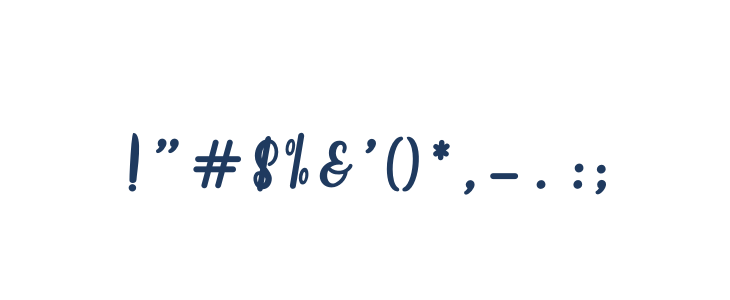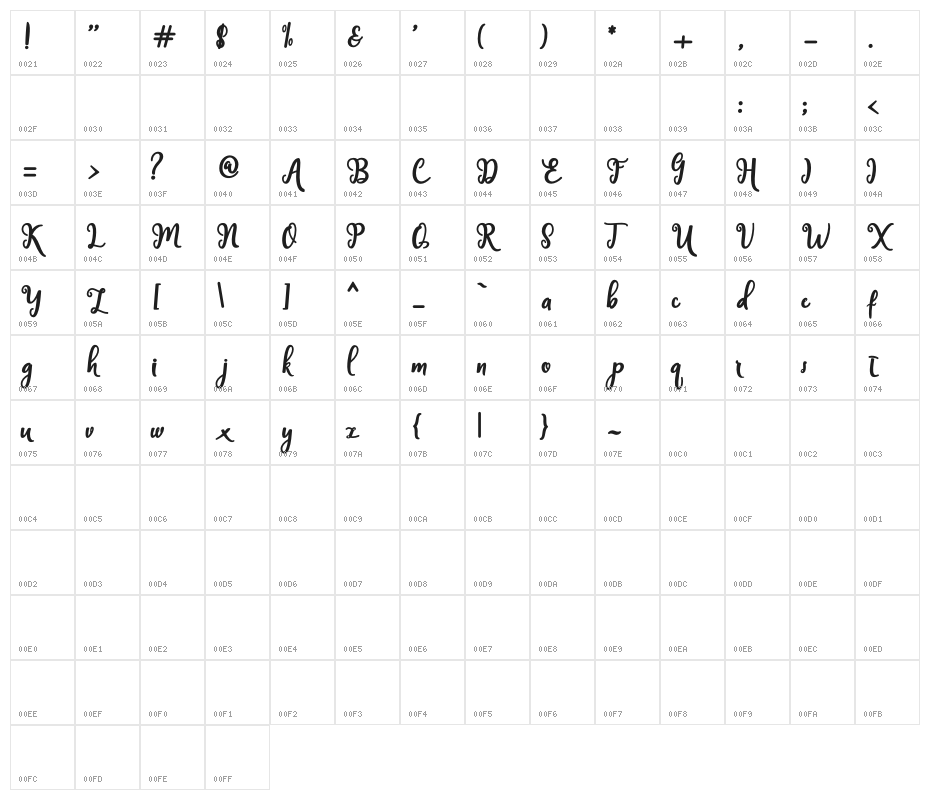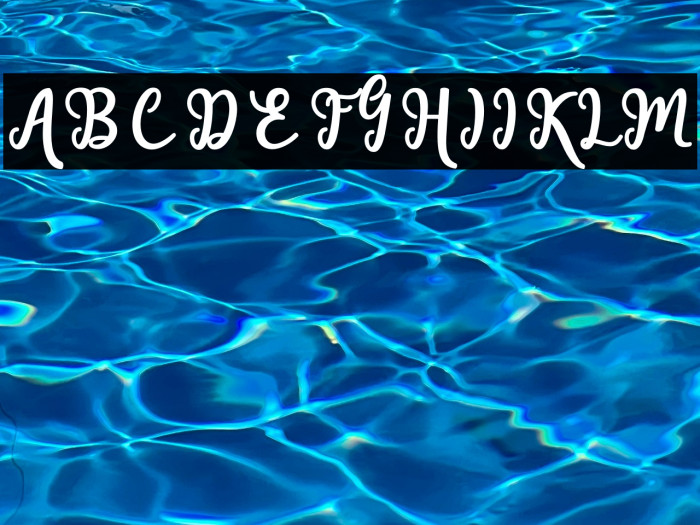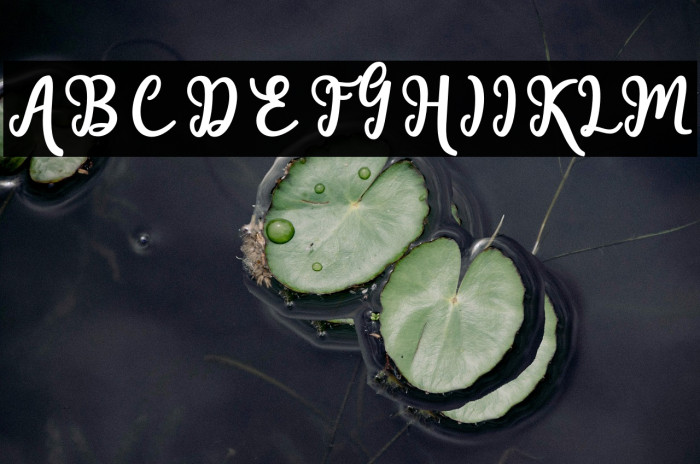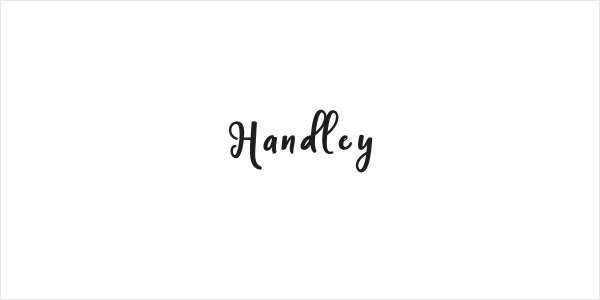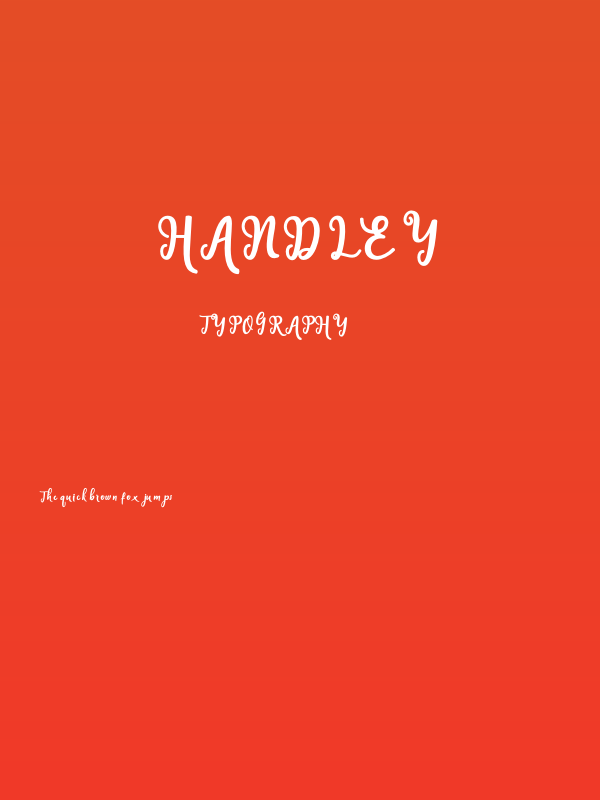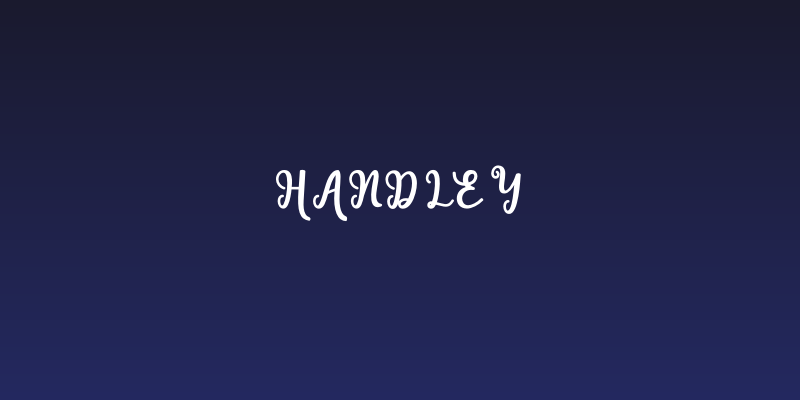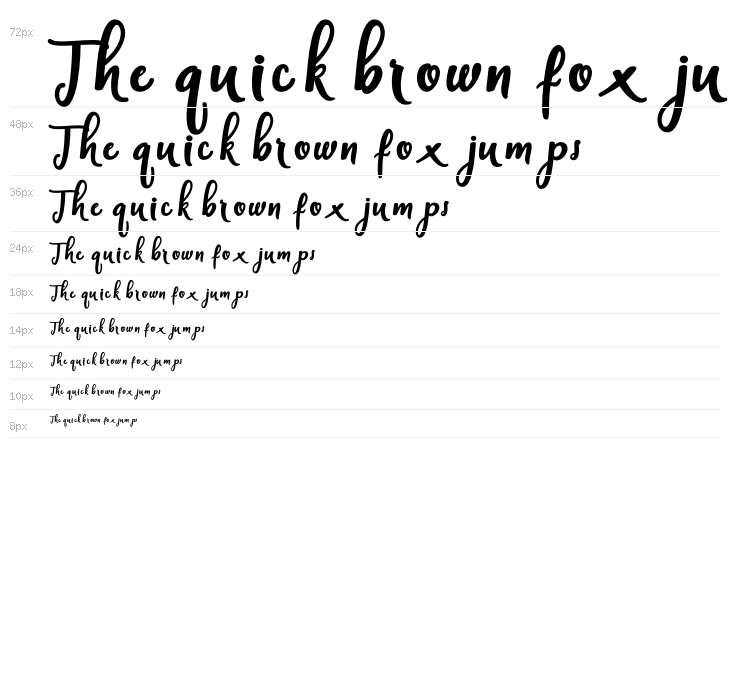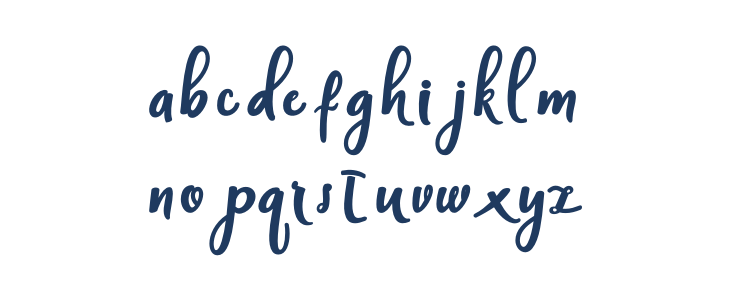
Handley Font
Handley Description
This font features a playful and whimsical script style with a hand-drawn appearance. The uppercase letters are characterized by their flowing lines and decorative loops, giving them a lively and dynamic feel. The lowercase letters maintain a consistent style, with smooth curves and a slightly informal touch. The numerals and special characters complement the overall design, adding to its charm and versatility. This font is ideal for projects that require a personal and artistic touch, such as invitations, greeting cards, and creative branding.
| Proposed Projects | Ideal for invitations, greeting cards, creative branding, and artistic projects. |